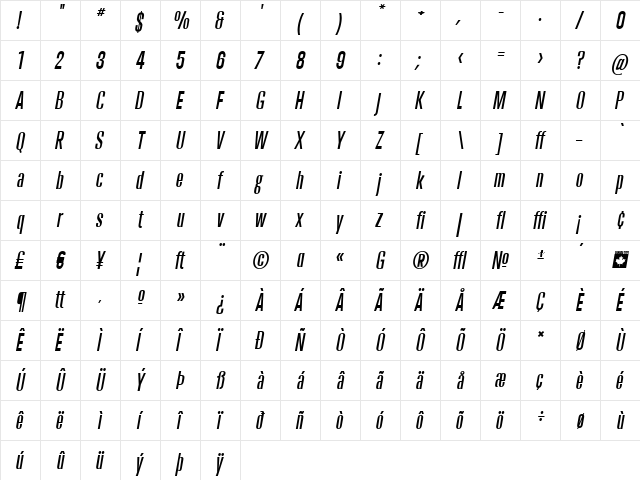
Trump Gothic East Medium Italic
Design Context for Trump Gothic East Medium Typeface
Trump Gothic East Medium has the quiet confidence of well-executed sans-serif typography: versatile, unobtrusive, and dependable at any size. The dynamic lean of this cut emphasises speed and emphasis in any layout.
Font Pairing: Works well alongside a characterful serif or display font that can carry the expressive load while Trump Gothic East Medium handles the functional copy.
Pro Tip: Pair Trump Gothic East Medium with a display or serif font for headlines — its neutral character makes it an excellent supporting player in complex typographic systems.